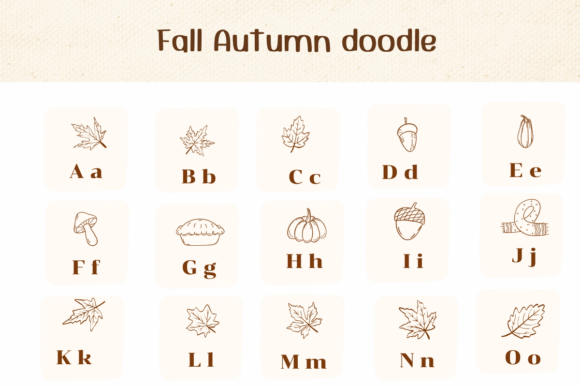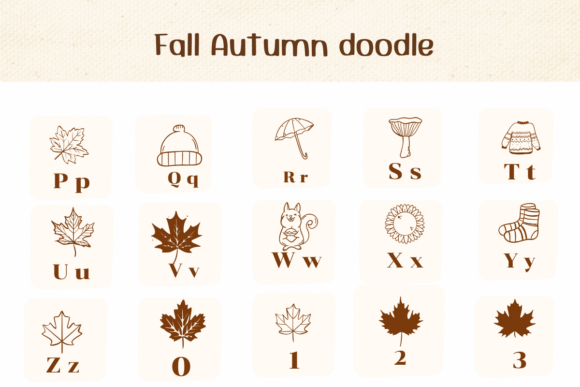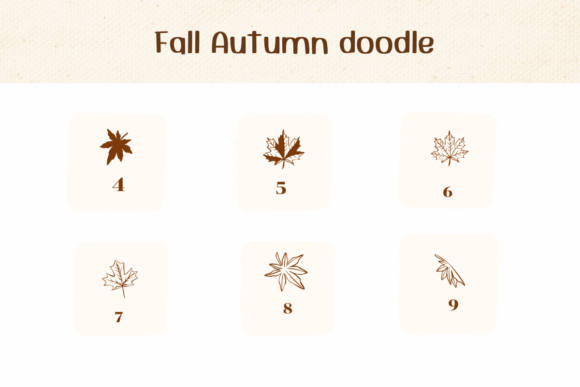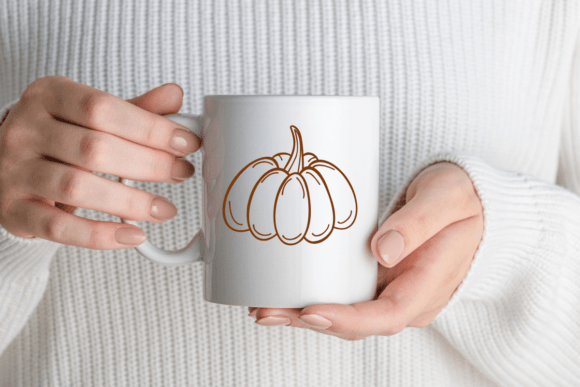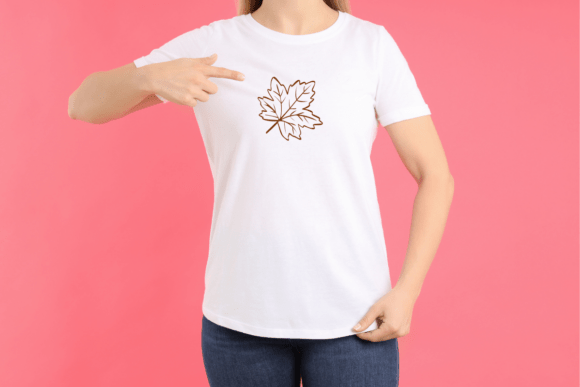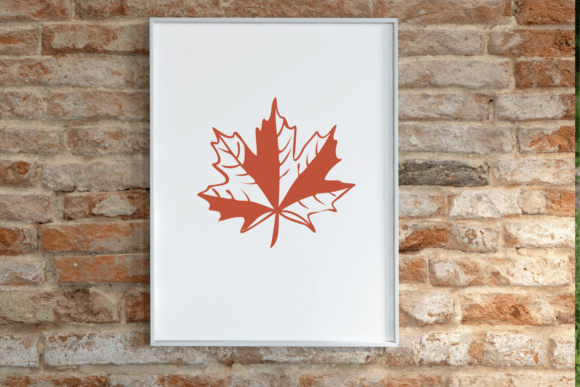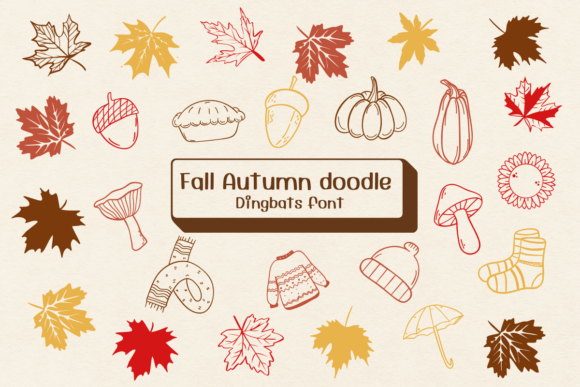
Fall Autumn Doodle Font: Add a Cozy Touch to Your Seasonal Designs
As the leaves change colors and the air grows crisper, designers and crafters alike are on the lookout for the perfect elements to add a touch of autumn charm to their projects. Look no further than the Fall Autumn Doodle Font, a delightful dingbat font packed with seasonal doodles that will make your fall-themed creations shine.
What is Fall Autumn Doodle Font?
Fall Autumn Doodle Font is a unique dingbat font that features a collection of hand-drawn seasonal doodles, including leaves, pumpkins, acorns, sweaters, and many more. This cozy font is designed to capture the warmth and charm of autumn, making it perfect for a wide range of projects, from fall-themed invitations and greeting cards to scrapbooking and holiday crafts.
Key Features of Fall Autumn Doodle Font
- Hand-drawn style: Each doodle is carefully crafted with a hand-drawn style, giving your designs a playful yet rustic touch.
- Seasonal doodles: The font includes a wide variety of seasonal doodles, such as leaves, pumpkins, acorns, sweaters, and more.
- Perfect for fall projects: Whether you’re creating fall-themed invitations, greeting cards, scrapbooking pages, or holiday crafts, this font is the perfect addition to your design toolkit.
- Easy to use: Simply type in the corresponding keyboard shortcut to access each doodle, making it easy to add a touch of autumn charm to your designs.
Uses for Fall Autumn Doodle Font
The Fall Autumn Doodle Font is incredibly versatile, making it perfect for a wide range of projects, including:
- Fall-themed invitations: Add a touch of autumn charm to your invitations with doodles like leaves, pumpkins, and acorns.
- Greeting cards: Create cozy greeting cards for friends and family with the font’s seasonal doodles.
- Scrapbooking: Add a playful touch to your scrapbooking pages with the font’s hand-drawn doodles.
- Holiday crafts: Use the font to create festive holiday crafts, such as decorations, gift tags, and more.
Tips for Using Fall Autumn Doodle Font
To get the most out of the Fall Autumn Doodle Font, here are a few tips to keep in mind:
- Mix and match doodles: Combine different doodles to create unique and eye-catching designs.
- Experiment with colors: Try out different color schemes to find the perfect combination for your project.
- Add texture: Consider adding texture to your designs to give them a more rustic, handmade feel.